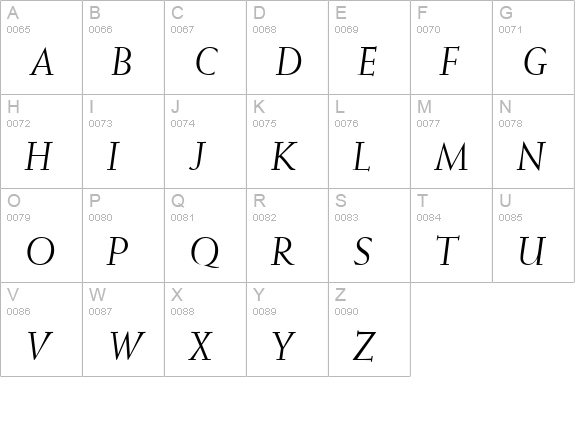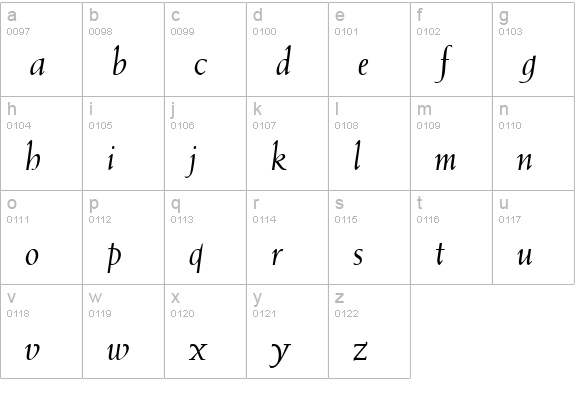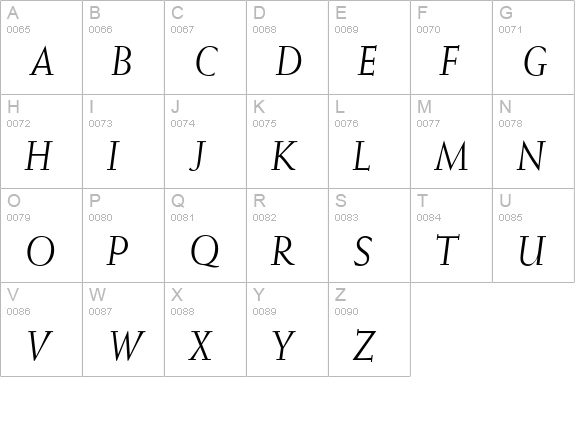
Missive SSi Italic Font Details
Missive SSi Italic is a distinctive, italic variant in the Missive typeface family \xE2\x80\x94 well suited to design and typography projects.
Missive SSi Italic font exudes elegance and sophistication with its stylish italic design. Its flowing curves and slanted appearance give off a sense of modernity and creativity, making it a perfect choice for projects that require a touch of flair. The italicized letters add a dynamic and artistic flair to any text, creating a captivating visual impact. The Missive SSi Italic font is not only visually appealing but also versatile, suitable for a wide range of design projects from branding to invitations and beyond. Its clean lines and balanced spacing ensure readability while still maintaining a sense of personality and uniqueness. Best of all, the Missive SSi Italic font is free to download at FontsMarket.com, making it easily accessible for designers and creatives looking to elevate their projects without breaking the bank. Don't miss out on the opportunity to add this elegant and stylish font to your collection today!